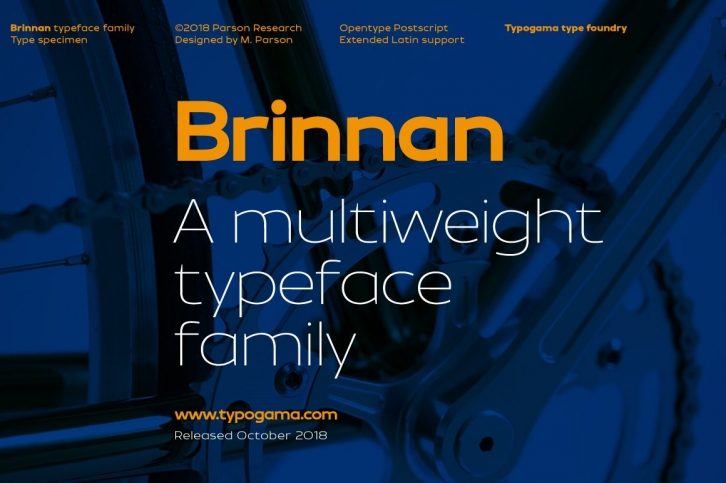
Brinnan is a wide, contemporary sans serif typeface that was conceived as a branding and editorial solution. With it’s ten weights, ranging from an elegant Thin weight to a solid and dense Black weight, this family was designed as a versatile and flexible that can be used on a range of projects and mediums.
Weights included: Thin, Thin Oblique, Light, Light Oblique, Regular, Oblique, Bold, BoldOblique, Black, Black Oblique
Opentype features: Ligatures, Discretionary Ligatures, Alternates, Hanging numerals, Tabular numerals, Scientific numerals, Fractions, Extended monetary symbols